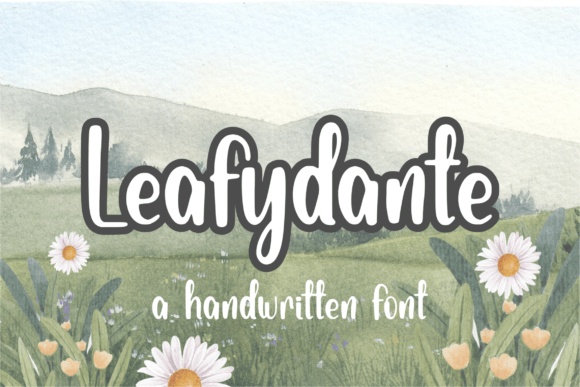
Journey into the realm of creativity with Leafydante Font, a handcrafted brush script that weaves artistry into every letterform. Designed with meticulous attention to detail, Leafydante captures the essence of elegance and authenticity. Its flowing lines and delicate strokes bring a touch of sophistication to your design projects.
Embrace the allure of Leafydante, a font that ignites imagination and empowers you to express your unique style. Perfect for crafting product packaging that exudes charm, branding projects that resonate with authenticity, and social media posts that captivate your audience, Leafydante transforms ordinary words into captivating works of art.
Unlock the creative potential within Leafydante and let your designs flourish. Whether you're designing wedding invitations that radiate romance, creating magazine layouts that inspire, or simply adding a personal touch to your everyday projects, Leafydante empowers you to make a statement.
Leafydante is your perfect partner in creating visual masterpieces. Experience the joy of seamless creativity as you effortlessly craft designs that leave a lasting impression. Join the creative revolution and let Leafydante elevate your designs to new heights of artistry.